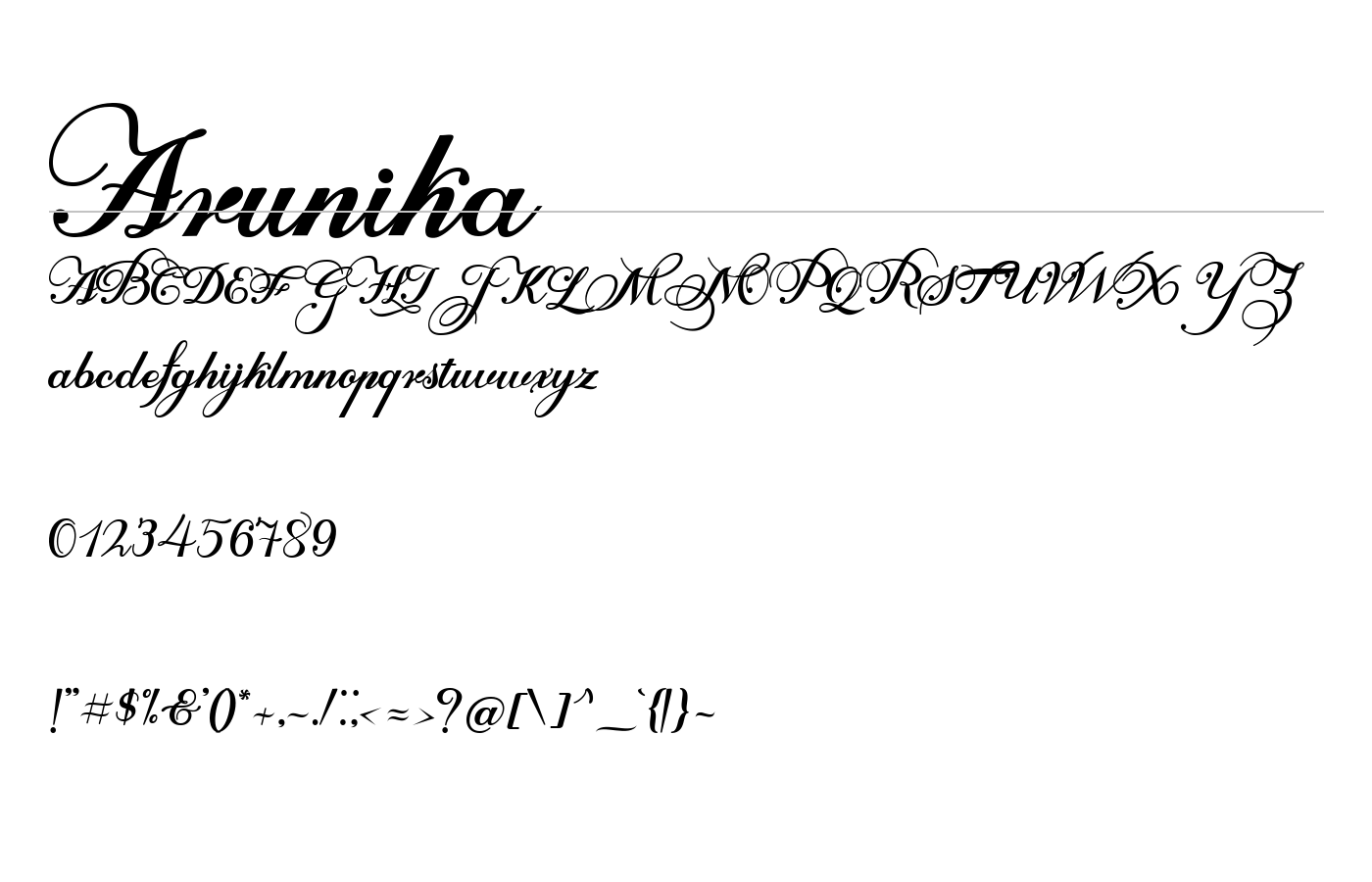
Arunika is an elegant script font characterized by its delicate, flowing strokes and high contrast between thick and thin lines. Its ornate uppercase letters and smooth, connected lowercase forms create a refined, sophisticated feel perfect for luxury branding, wedding invitations, and upscale editorial designs. This font works best in decorative contexts where a graceful, classic touch is desired.